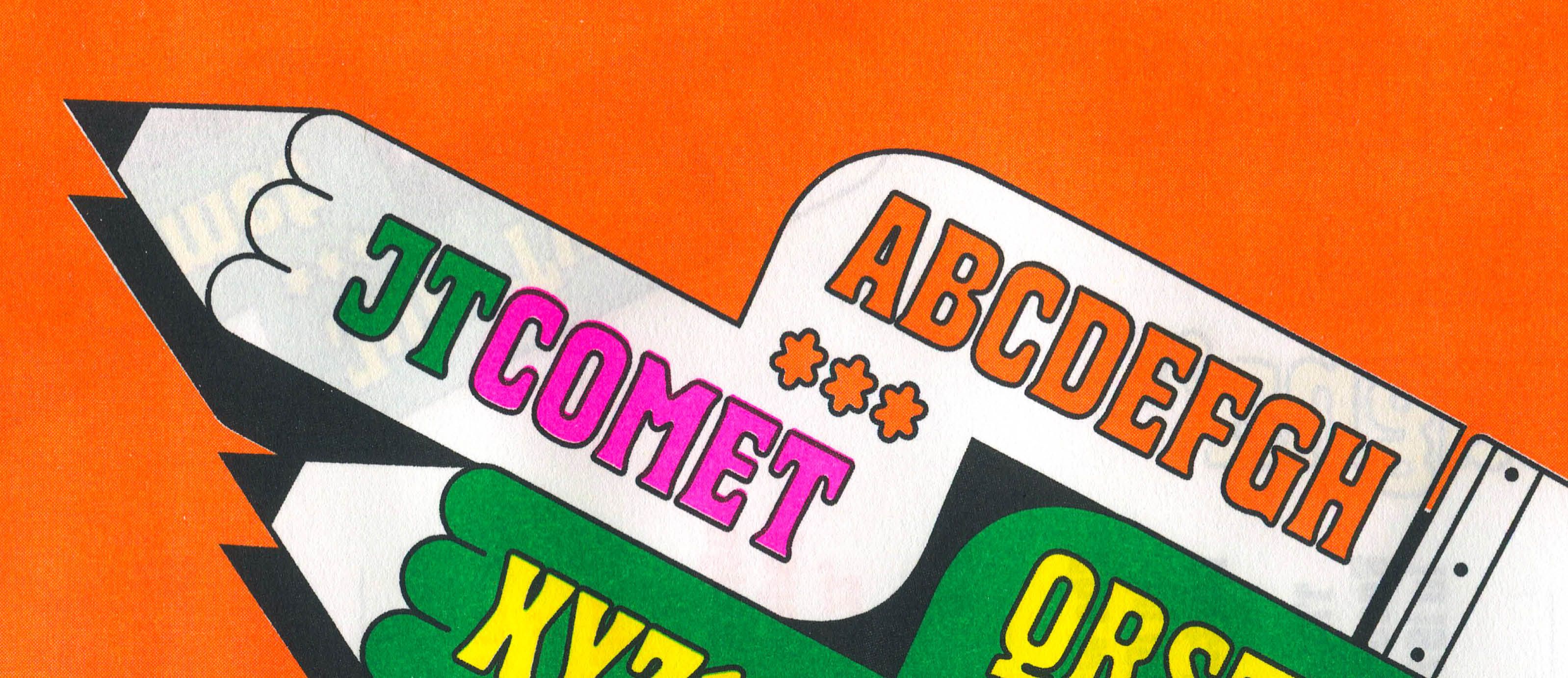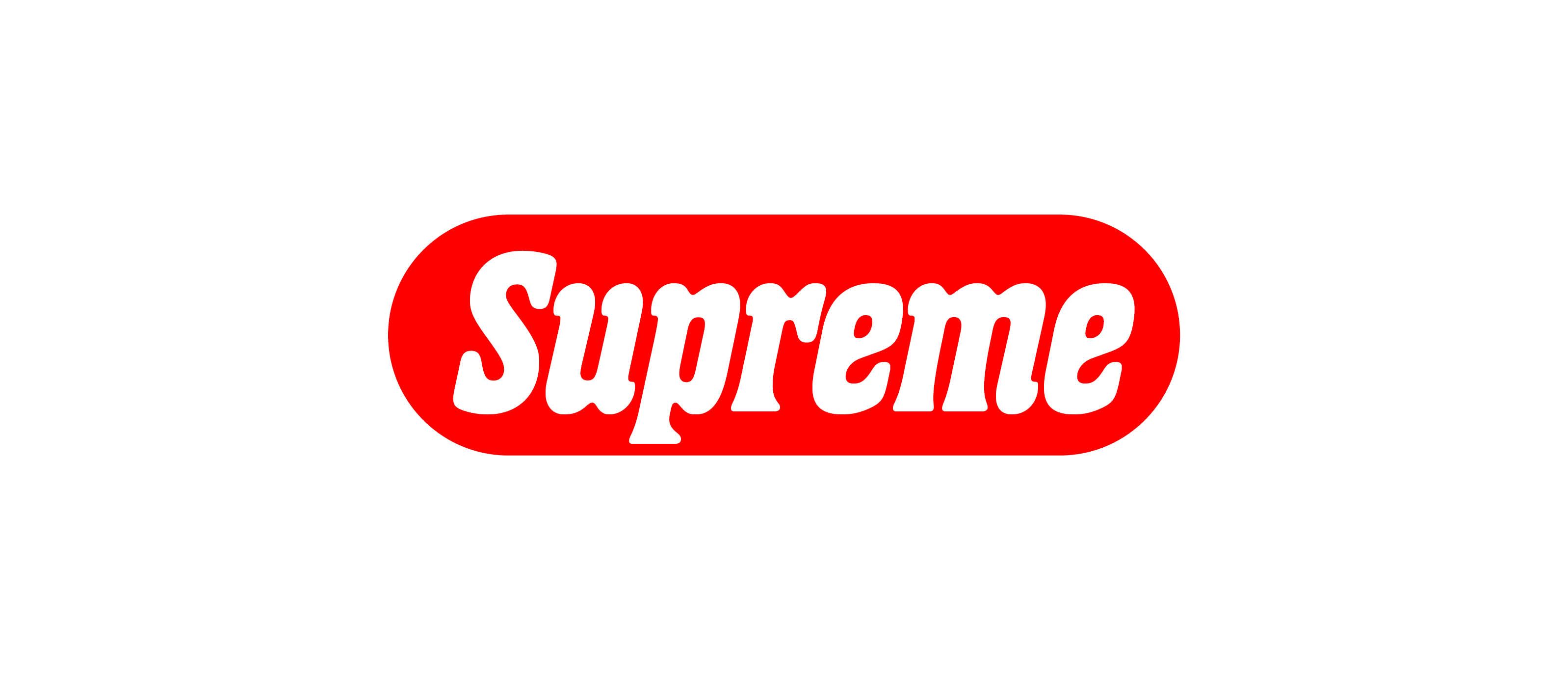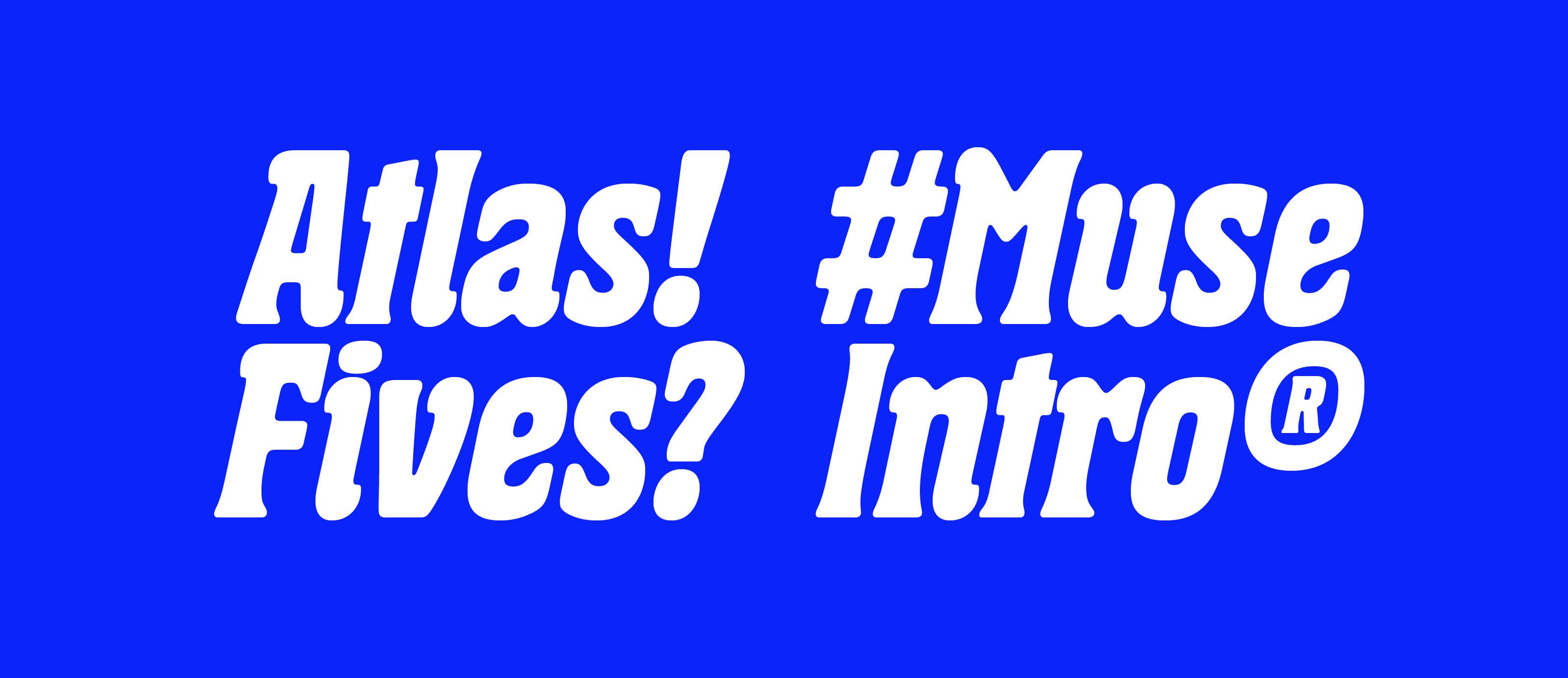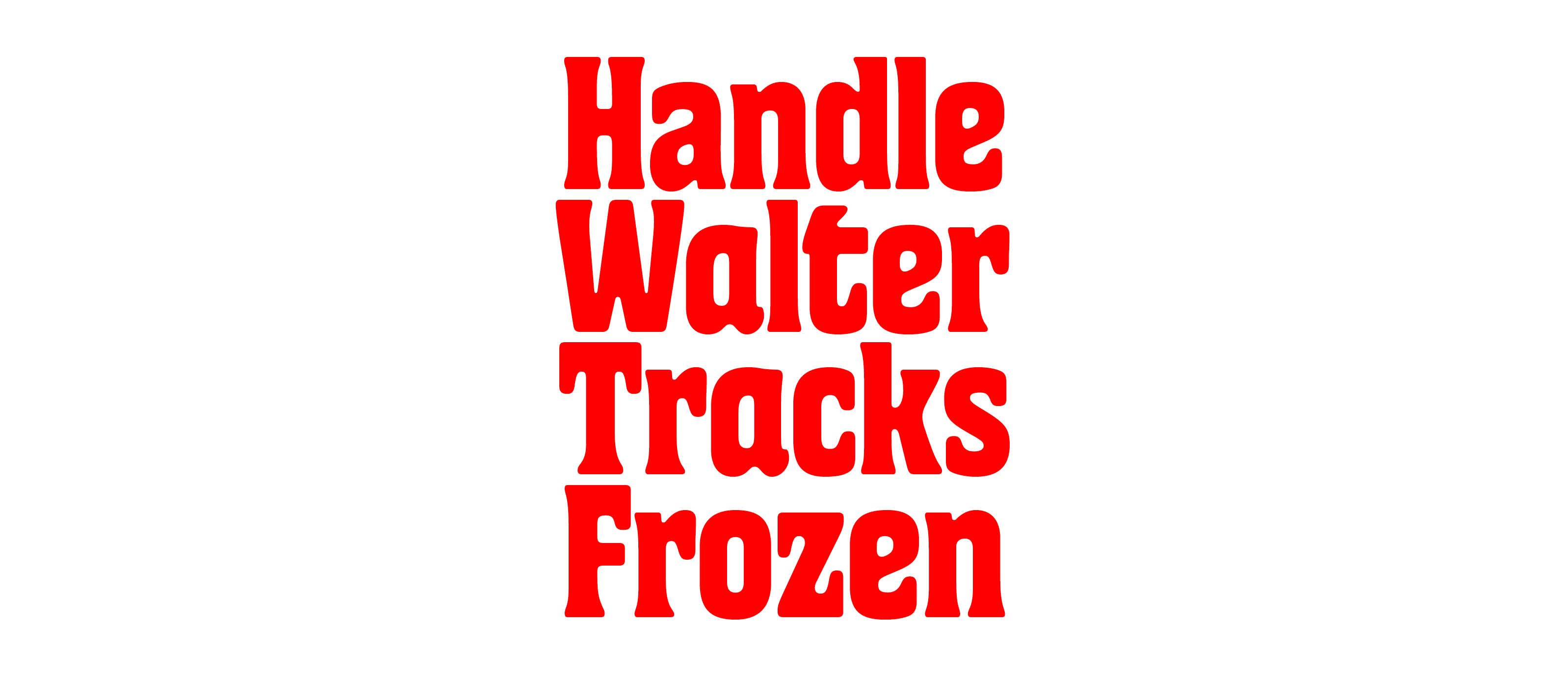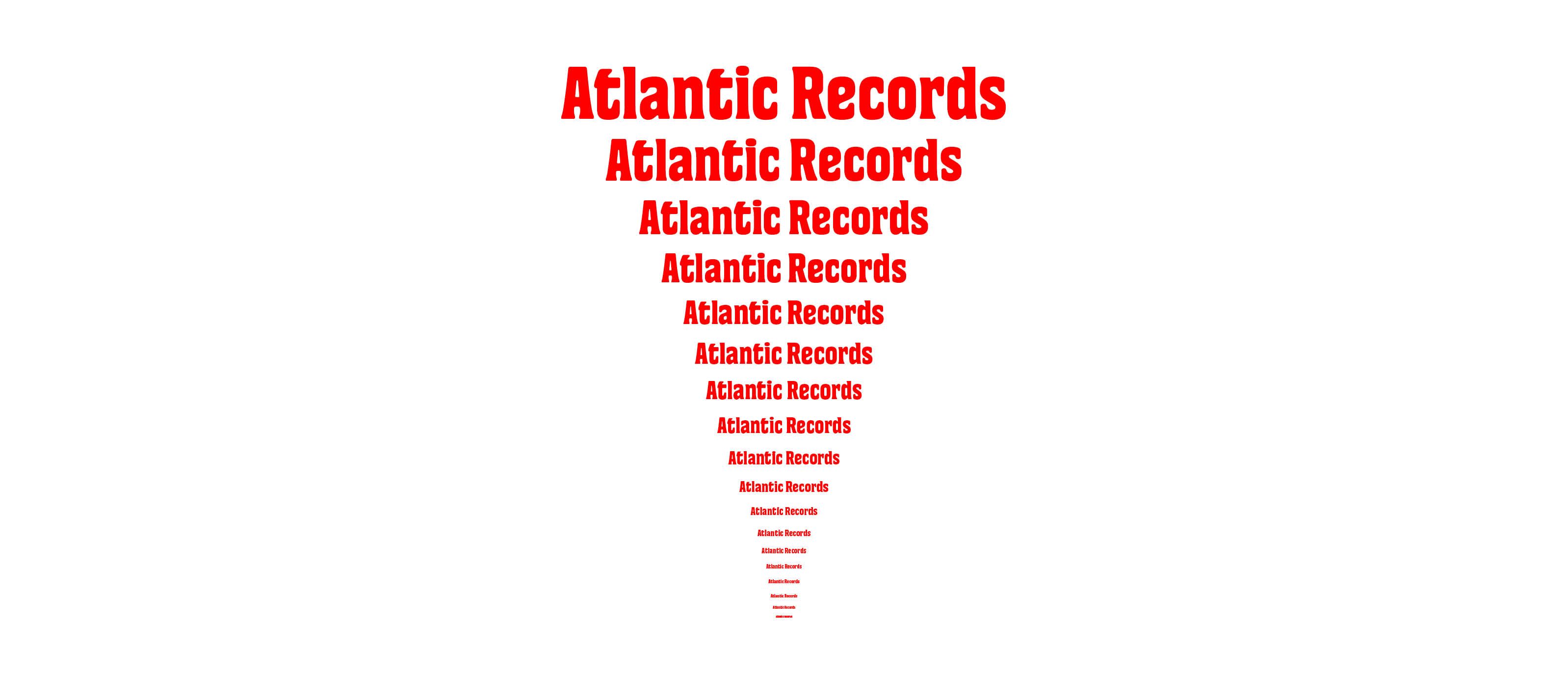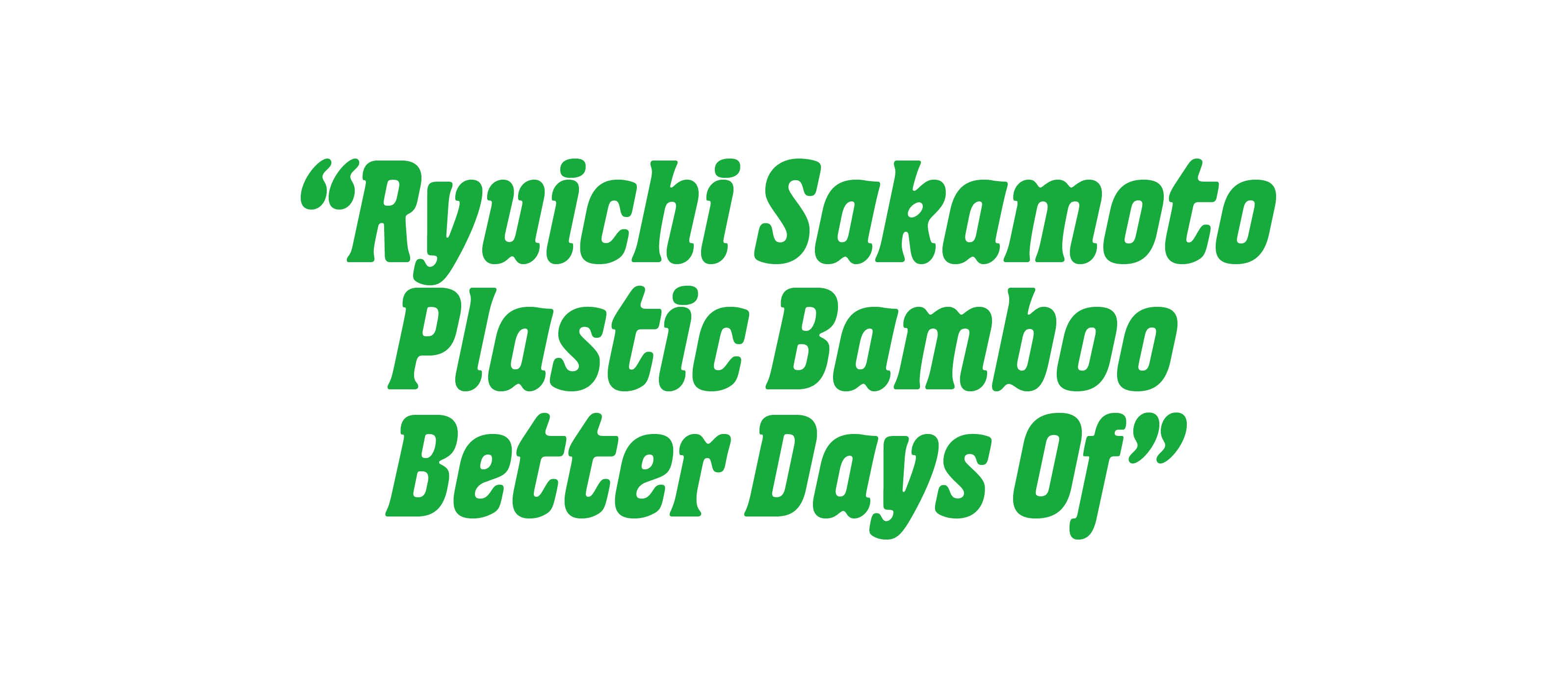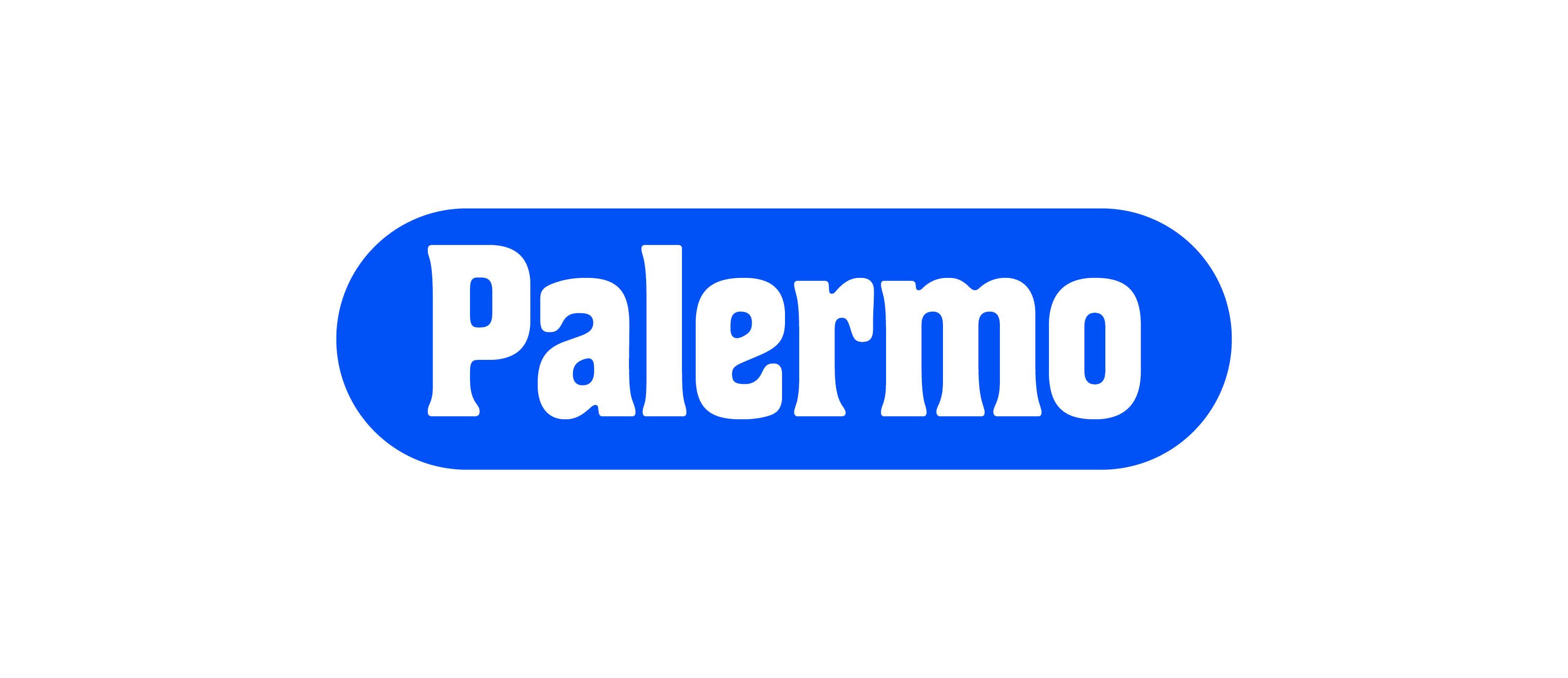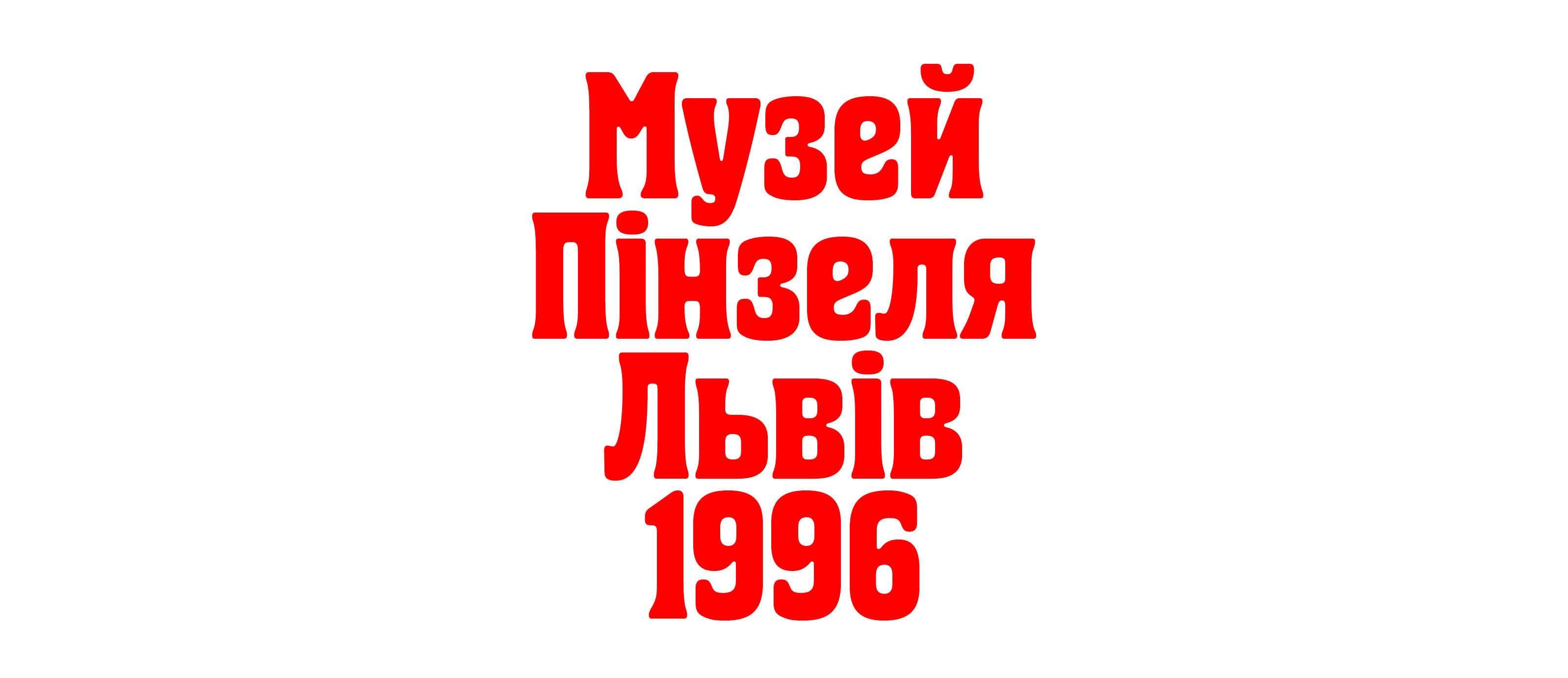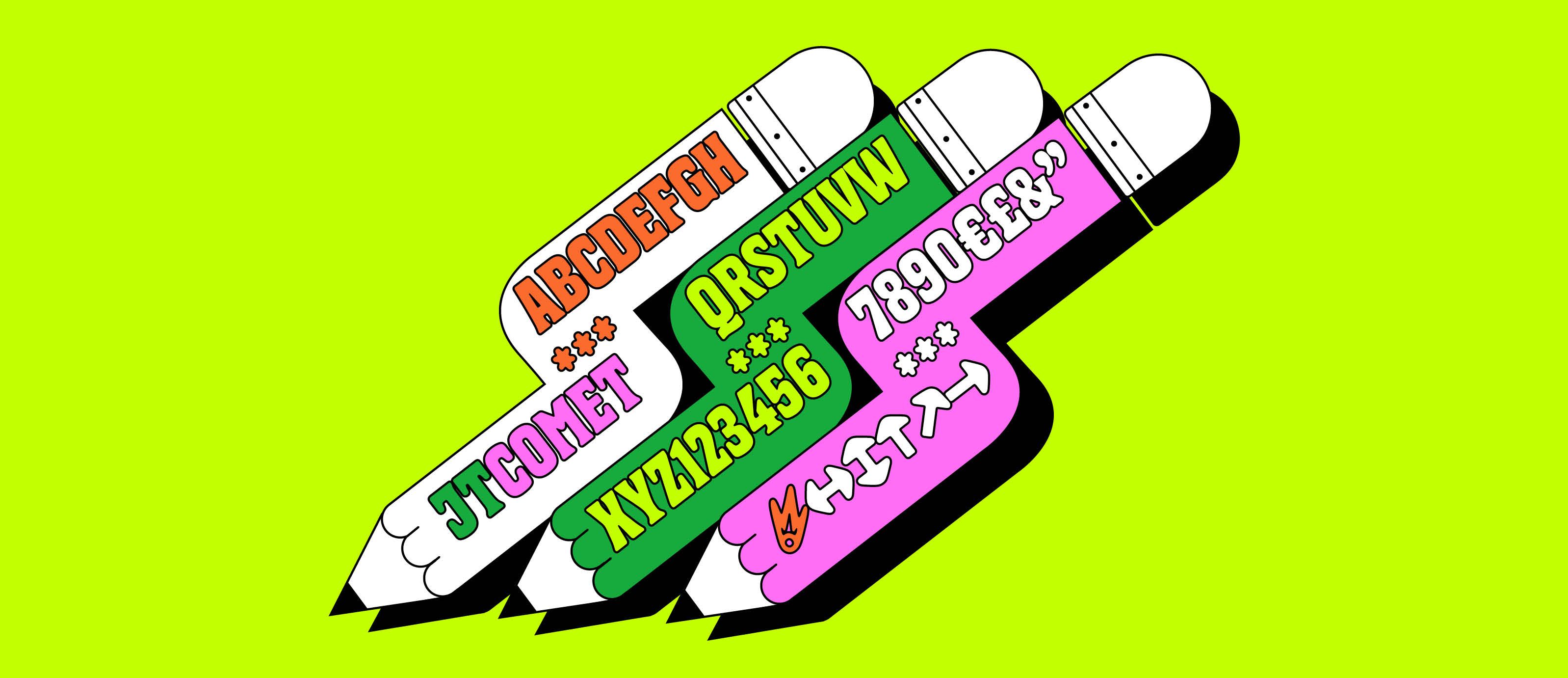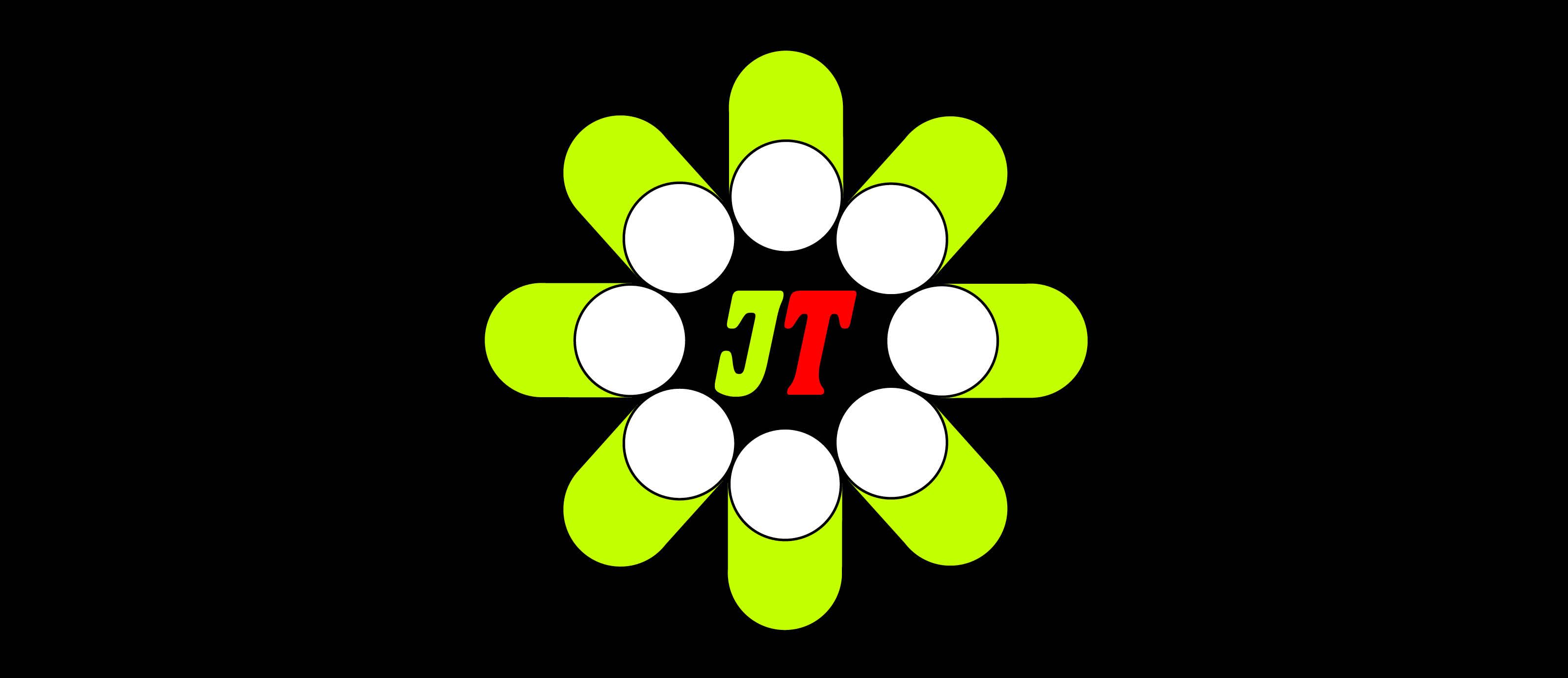
JT Comet is a warm, chunky typeface suited for a wide range of branding applications. What makes this project particularly important to us is its collaborative nature. While typefaces are often designed by a single designer, JT Comet was developed collectively by Edward Dżułaj, Nika Langosz, and Lev Rastvortsev. During the design process, we aimed to capture the charm of lettering found on shop windows, ice cream trucks, and various food packaging. Like many type designers, we enjoy revisiting archives and collecting references. This project draws inspiration from the spirit of Heinz Hoffmann’s Herold Reclameschrift, designed for H. Berthold, however, with JT Comet, we were not interested in creating a revival. Instead, our goal was to reinterpret and reshape these influences into something new. JT Comet has soft curves, playful energy, friendly tone, and a warm character. We hope you will enjoy using our font in your projects!